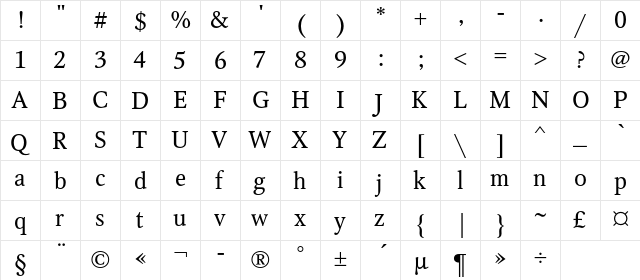
OctavaC Regular
Design Context for OctavaC Typeface
OctavaC takes a measured approach to typography — its balanced proportions and neutral character make it a reliable workhorse for both digital and print work.
Pro Tip: Use OctavaC in both headline and body roles to test its range before committing to a single application.